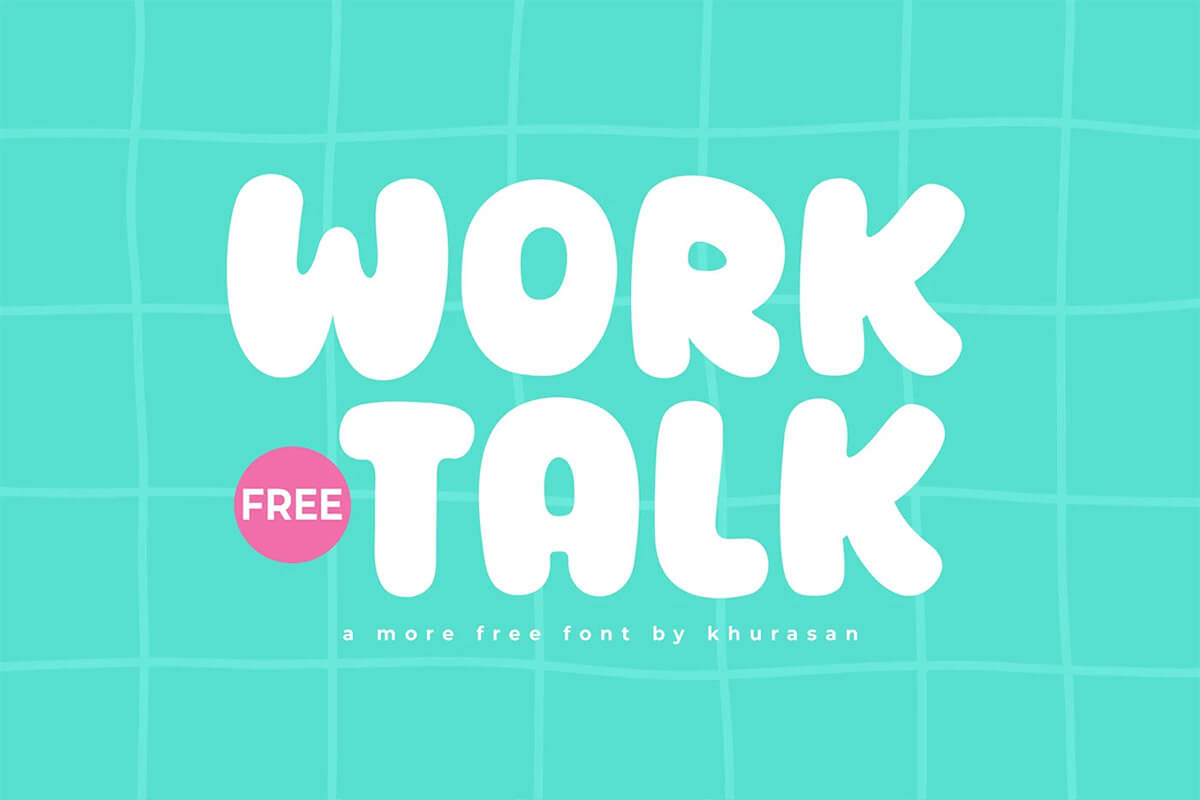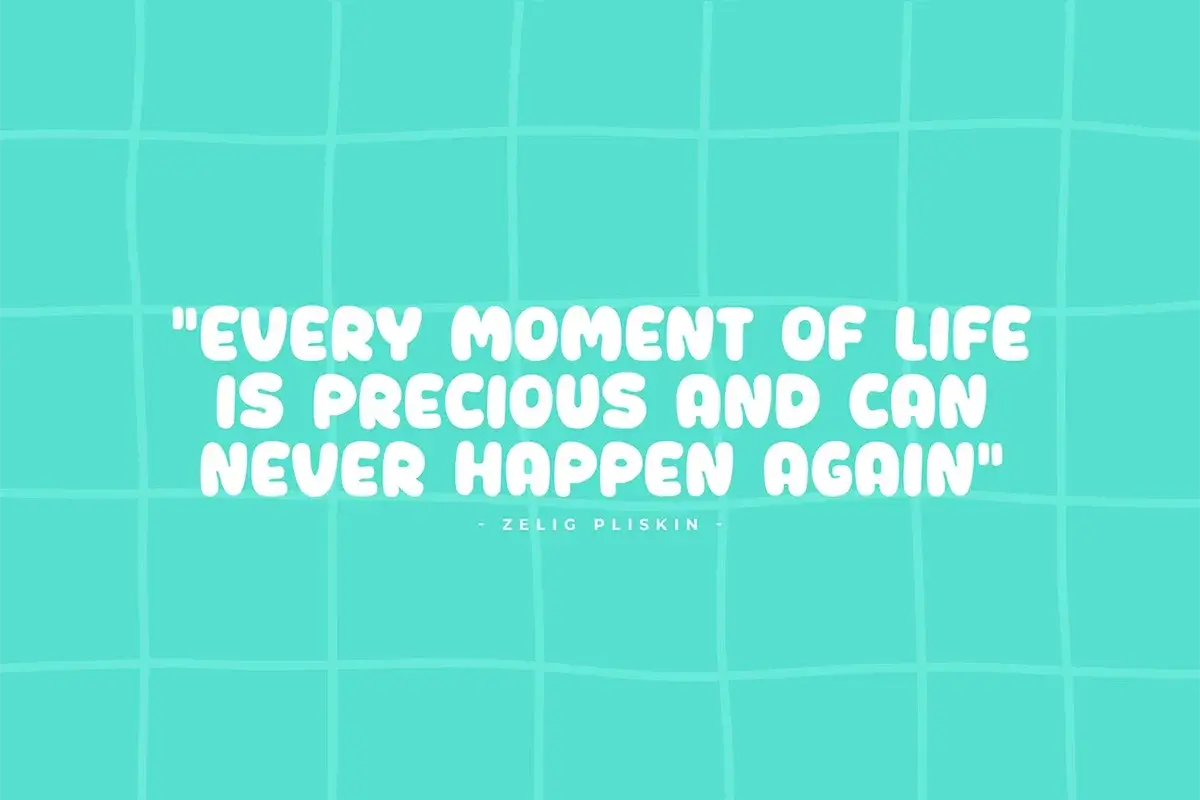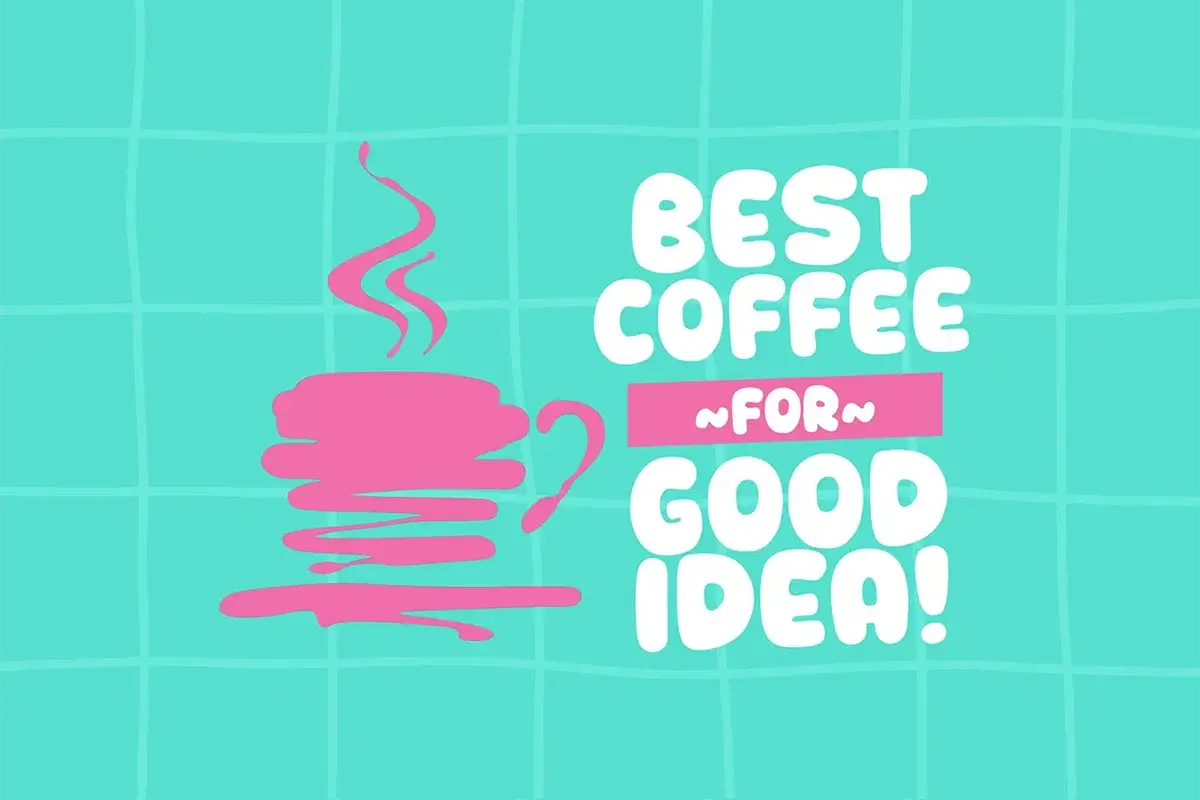
Worktalk Font – Fancy Typeface
The Worktalk Font is a unique and stylish font that adds personality to your designs with its unique size and playful shapes.
This font is great to use for children book, branding, posters, wedding invitations, headings, t-shirts, letterheads, signage, labels, badges, subheadings, branding, craft design, packaging, love letters, or anything that needs a fun and happy look!